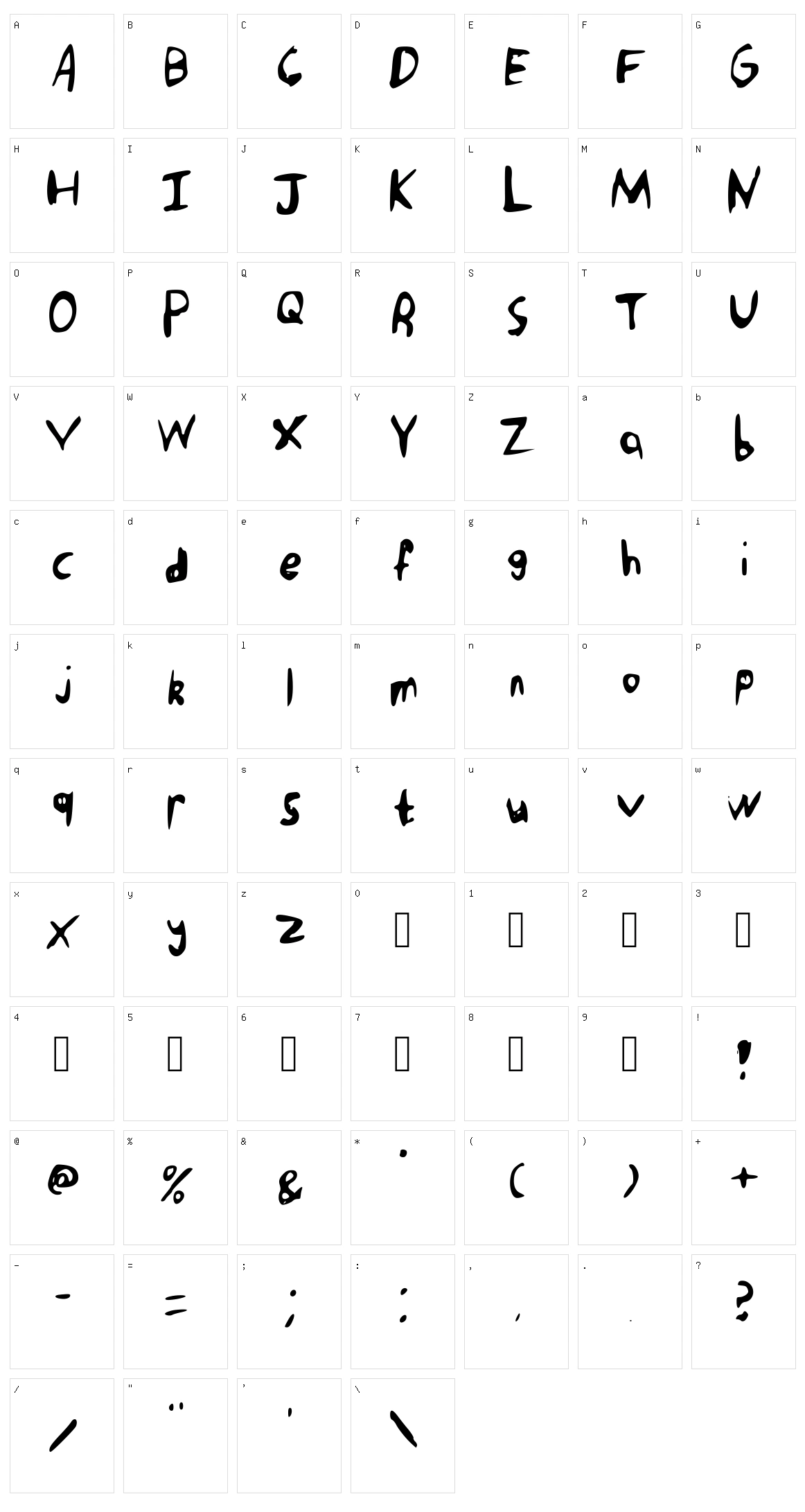
The free font Punk Rock Handwriting is carefully designed by kizzles the cat, showcasing a thoughtful balance of creativity and usability and falls under the Trash font style. When you download the ZIP file, it contains only 8.31 KB of font files, making it lightweight and quick to download. Please review the license details below to understand permitted usage and distribution rights. If license information is not available, we recommend using this font for personal projects only or contacting the author directly for commercial usage permissions.